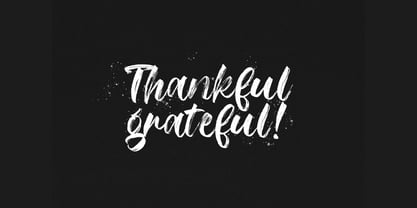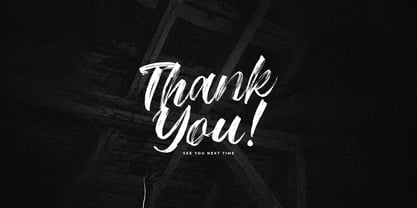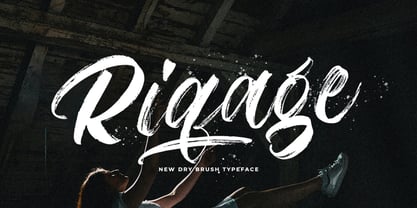
The Riqage Font Family was designed by Virgiawan Listanto and published by Stringlabs Creative Studio. Riqage contains 1 styles.
Riqage is a high-energy textured brush font that combines raw power with artistic flair. Its bold strokes and rugged texture create a dynamic, hand-painted look perfect for designs that demand attention and make a statement. From posters and apparel to branding and album covers, Riqage adds an edgy, rebellious feel with every letterform.
Riqage